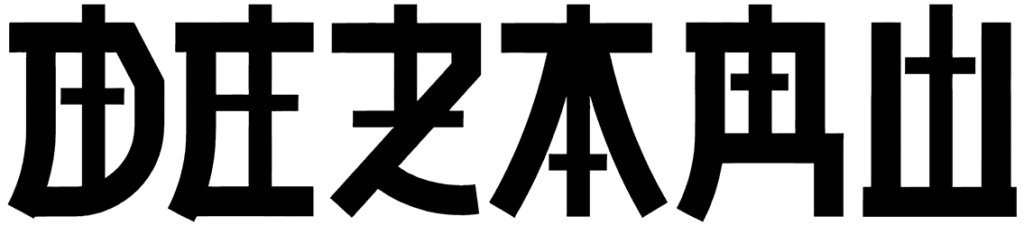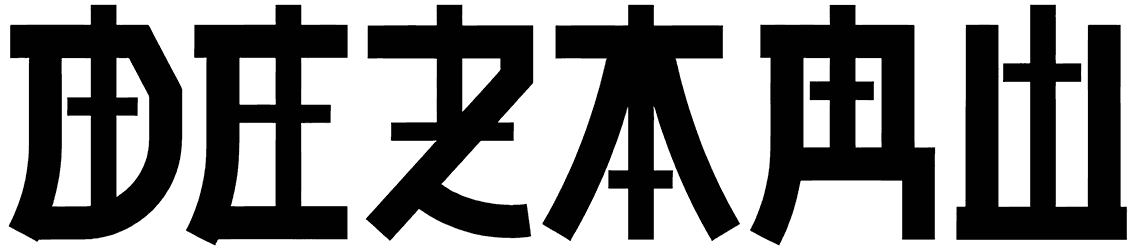
Dezaru Font
Using an Asian font like the present item will be a nice opportunity to bring a vibrant and eye-catching mood to your text. Lots of designs, like a Chinese movie poster, can become better with this unique choice. Dezaru font doesn’t offer numerals, but still, it will be a good option for your innovative projects.